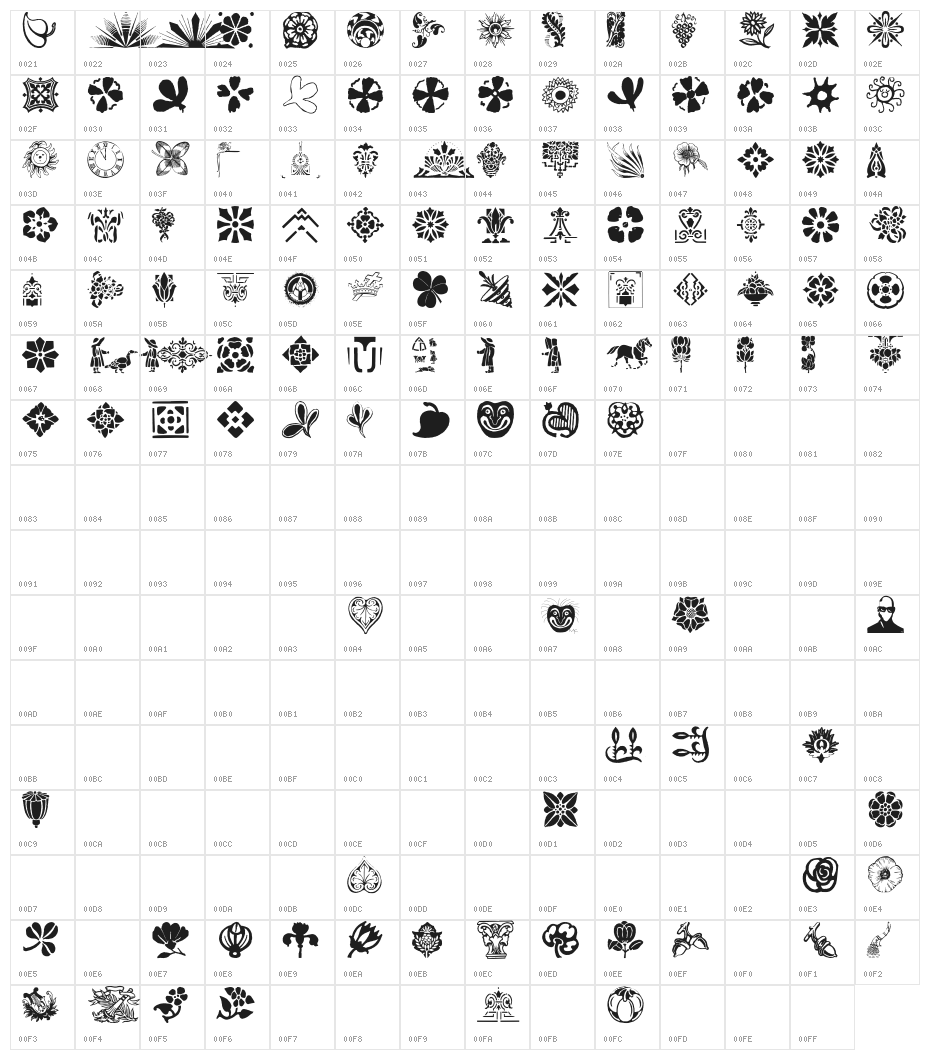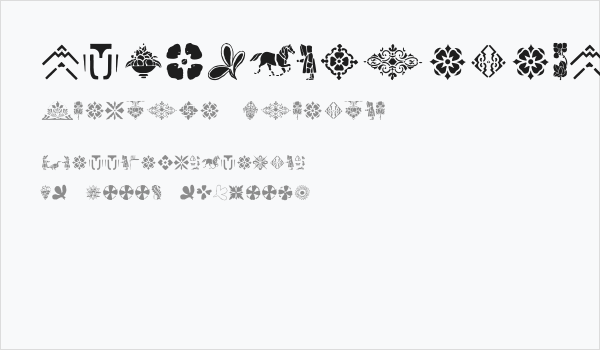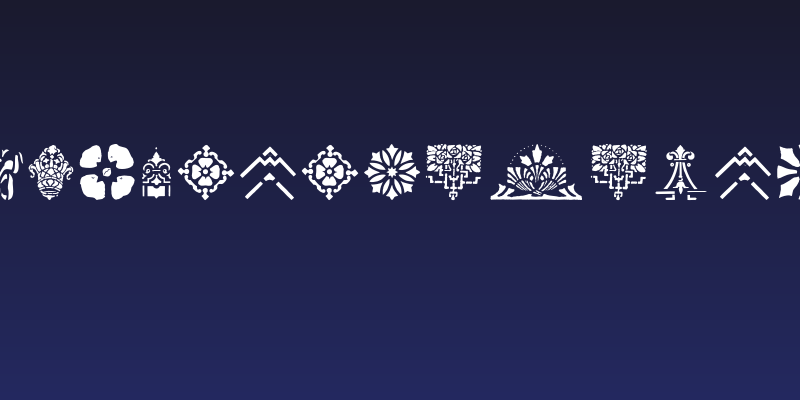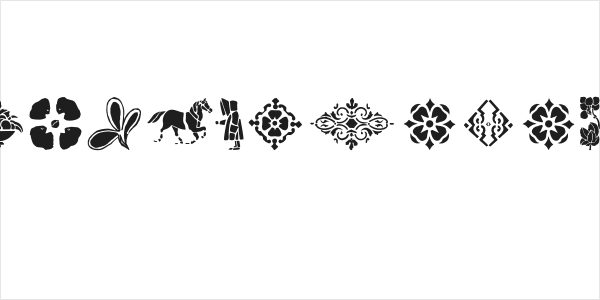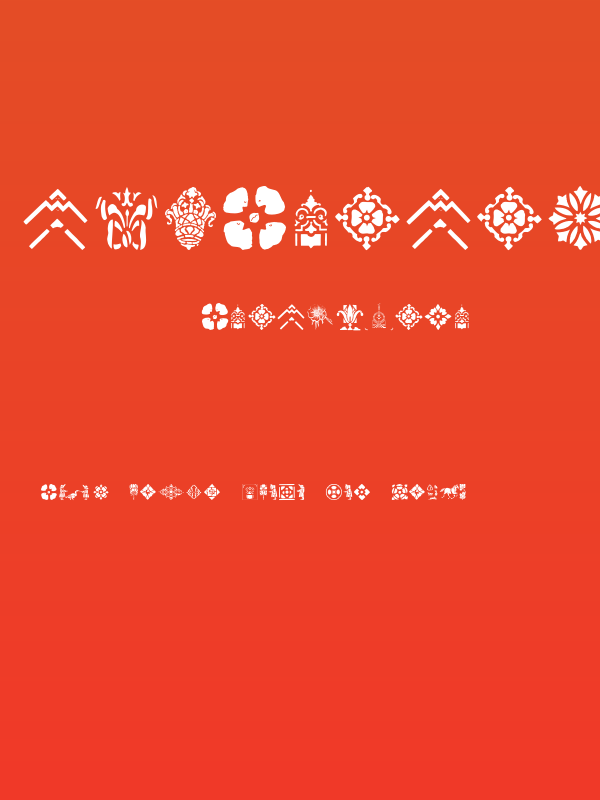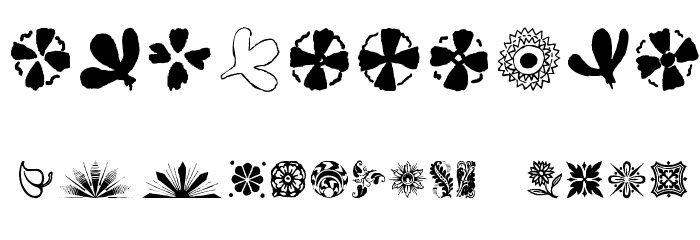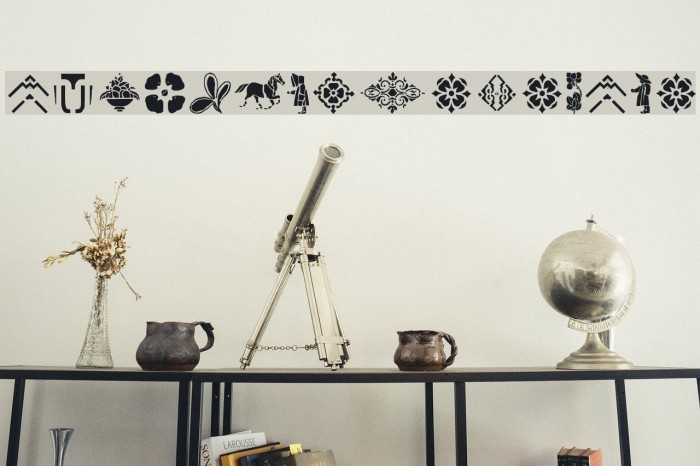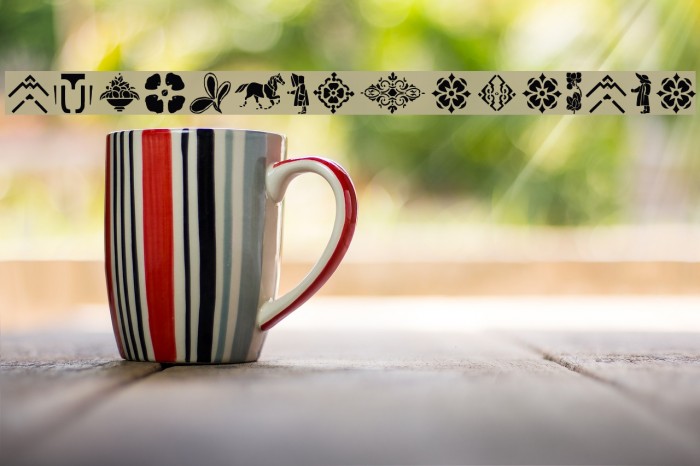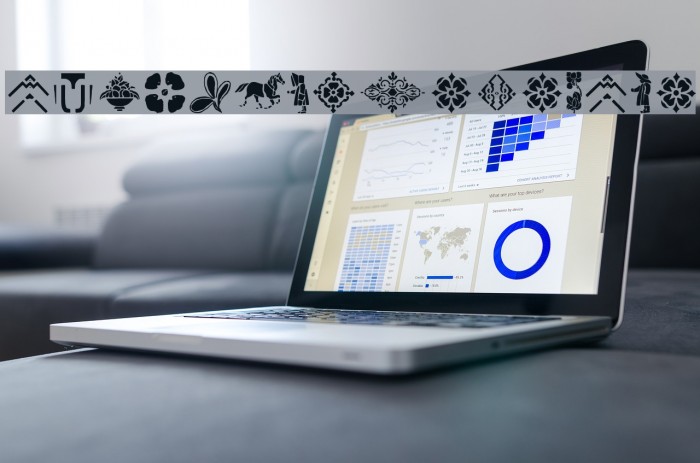
OldTypoPiecesOne Font
OldTypoPiecesOne Description
A collection of highly decorative, vintage-inspired ornamental glyphs and pictorial symbols, including floral motifs, geometric shapes, and stylized figures, rendered in bold black silhouettes with intricate detailing.
| Overall Style | Vintage, Decorative |
| Use Case | Borders, embellishments, icons, decorative accents. |
| Proposed Projects | Book covers, invitations, certificates, decorative borders, vintage branding, scrapbooking, packaging design. |